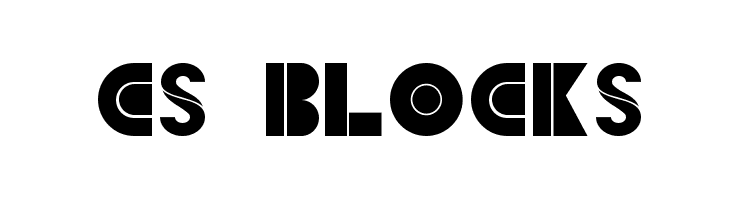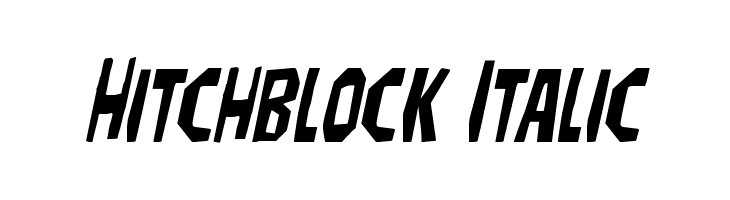
( Chiara Sotgiu )
A bold, geometric font with a retro-futuristic style and strong visual impact.
( I Like Fonts - Alan Alan )
A bold, hand-drawn style font with a playful and artistic touch.
A bold, three-dimensional engraved font with a strong, impactful presence.
A bold, geometric font with angular shapes and a modern style.
A bold, italic, and geometric font with a dynamic and energetic style.
A bold, angular font with a dynamic, tilted design.
A bold, geometric font with a futuristic and industrial style.
( Jorrit van Rijt - Behance.net/jorritvanrijt )
A bold, geometric typeface with a modern, industrial style.
( Jérôme Delage )
A bold, distressed font with a grunge-inspired, textured style.
( Parker Creative - Alan Parker - fontbundles.net/parker-creative )
A bold, geometric font with strong, uniform strokes and a modern aesthetic.